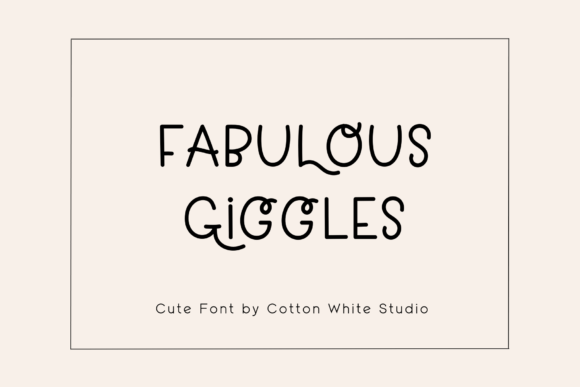
In a world of digital expression, where words dance across screens and stories come alive in pixels, there's a font that's poised to steal your heart and capture your imagination: Fabulous Giggles. Picture this: a font so enchantingly playful, it's like a melody written in ink. Its whimsical strokes dance and twirl, evoking a sense of pure joy and carefree abandon.
With its whimsical curves and playful personality, Fabulous Giggles is the perfect font for adding a touch of magic to your creative projects. It's ideal for whimsical logos that demand attention, branding that radiates warmth and cheer, and social media campaigns that burst with vibrancy. Imagine your words dancing across the screen, captivating audiences with their playful charm.
Step into a world of creativity where laughter and imagination intertwine. Fabulous Giggles is your passport to a realm where the ordinary becomes extraordinary. From enchanting notebooks and journals that whisper secrets to heartfelt letters that carry whispers of love, this font transforms the mundane into the magical.
Unlock a treasure trove of possibilities with Fabulous Giggles. Embark on a design journey where your wildest dreams take shape. Create whimsical labels and stickers that add a pop of personality to your belongings, breathe life into blogs and quotes with delightful charm, and craft greeting cards that carry a symphony of warmth and cheer.
Picture your words adorning tea towels, transforming them into canvases of culinary artistry. Envision apparel and pillows that radiate joy, mugs that spark smiles with every sip, and toys that ignite imaginations. Bring your ideas to life with posters that command attention and baby clothing that exudes cuteness.
Let Fabulous Giggles be your muse as you craft picture books that transport readers to enchanted lands or design logos that leave an indelible mark. This font is an artist's playground, an invitation to let your creativity soar.